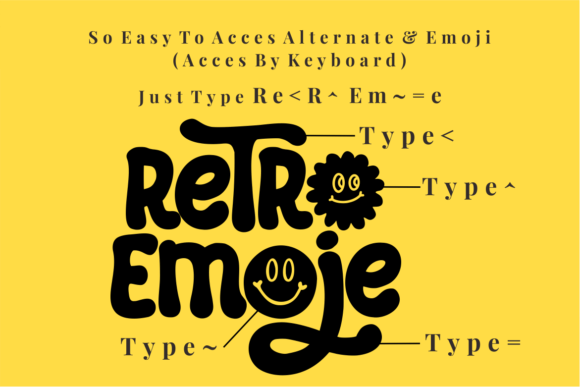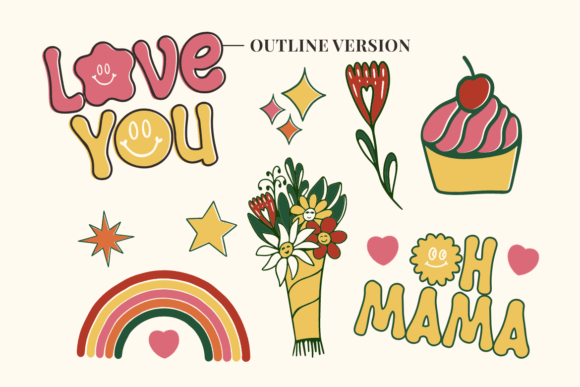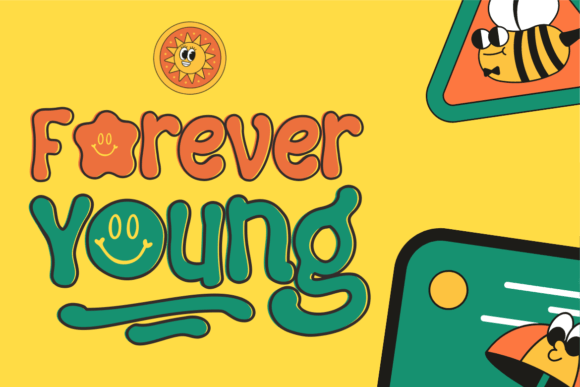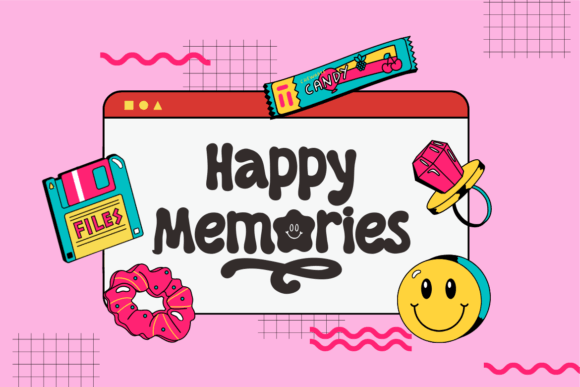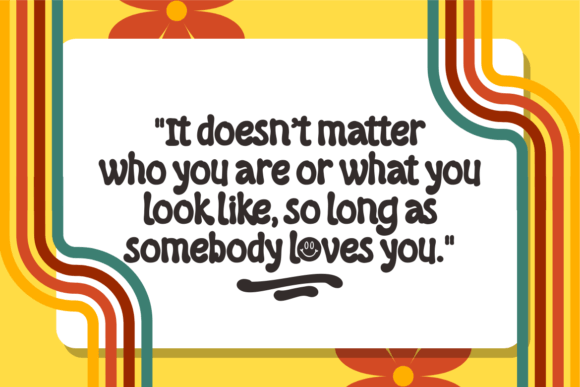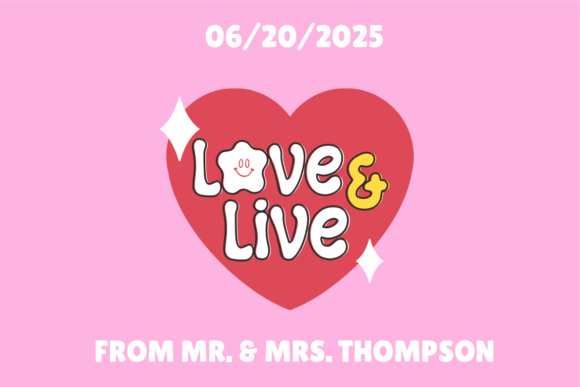
Introduction to Retro Emoje Font
Have you ever found yourself rummaging through old trunks in your attic, uncovering forgotten treasures that spark memories of a bygone era? As you dust off a vintage typewriter or a stack of yellowed letters, you can’t help but feel a sense of nostalgia wash over you. This is the magic of the past, and it’s precisely this enchantment that the Retro Emoje Font embodies.
As a designer, you know the value of a well-chosen font in elevating a project from ordinary to extraordinary. That’s where the Retro Emoje Font comes in – a free download that’s perfect for adding a touch of whimsy and romance to your creative projects. With its high-quality design and transparent background, this font is a versatile design resource that’s sure to delight.
Key Features of Retro Emoje Font
- Retro aesthetic with a unique blend of vintage and modern elements, perfect for creative projects requiring a nostalgic feel.
- Comes with a transparent background, allowing for seamless integration with various design elements and backgrounds.
- Includes a wide range of characters, including uppercase and lowercase letters, numbers, and special characters, making it a versatile design resource.
- Perfect for designers working on creative projects, such as branding, advertising, and editorial design, where a unique and eye-catching font is required.
Honest Review: Retro Emoje Font
I recently came across the Retro Emoje Font and was excited to dive in and see what it had to offer. As a designer, I’m always on the lookout for high-quality design resources that can elevate my creative projects.
The font itself is quite charming, with a unique blend of vintage and whimsical elements that’s sure to add a touch of personality to any design. One of the standout features of the Retro Emoje Font is its transparent background, making it easy to layer over other design elements.
- Unique and playful design style
- High-quality vector format for crisp printing
- ⚠️ Limited font size range, may not be suitable for large-scale text
- ⚠️ Some characters may not be fully compatible with certain software
Overall, I was impressed with the Retro Emoje Font, but as with any design resource, it’s not perfect. With some careful consideration and planning, it can be a great addition to your design toolkit.
Retro Emoje Font
Retro Emoje Font is a unique design resource that can add a touch of nostalgia to your creative project. This font is perfect for designers who want to create eye-catching graphics and add a vintage feel to their work.
Getting the Most Out of Retro Emoje Font
To get the most out of Retro Emoje Font, use it with a transparent background to create a seamless design. You can also experiment with different font sizes, colors, and combinations to create unique and eye-catching graphics.
Retro Emoje Font is perfect for creating:
- Vintage-inspired posters and flyers
- Retro-themed social media graphics
- Vintage-style invitations and cards
Alternatives to Retro Emoje Font
Pacifico is a high-quality, elegant script font that can add a touch of sophistication to any creative project. It’s perfect for use in wedding invitations, restaurant menus, and other design projects where a refined look is desired.
Pacifico is a great alternative to Retro Emoje Font for projects that require a more subtle and refined aesthetic. While Retro Emoje Font is bold and playful, Pacifico is more understated and elegant.
Great Vibes is a free download font that’s perfect for designers who want a high-quality, retro-inspired font without the cost. It’s great for use in posters, flyers, and other design projects where a fun and playful vibe is desired.
Great Vibes is a great alternative to Retro Emoje Font for projects that require a fun and energetic feel. While Retro Emoje Font is bold and playful, Great Vibes is more relaxed and casual.